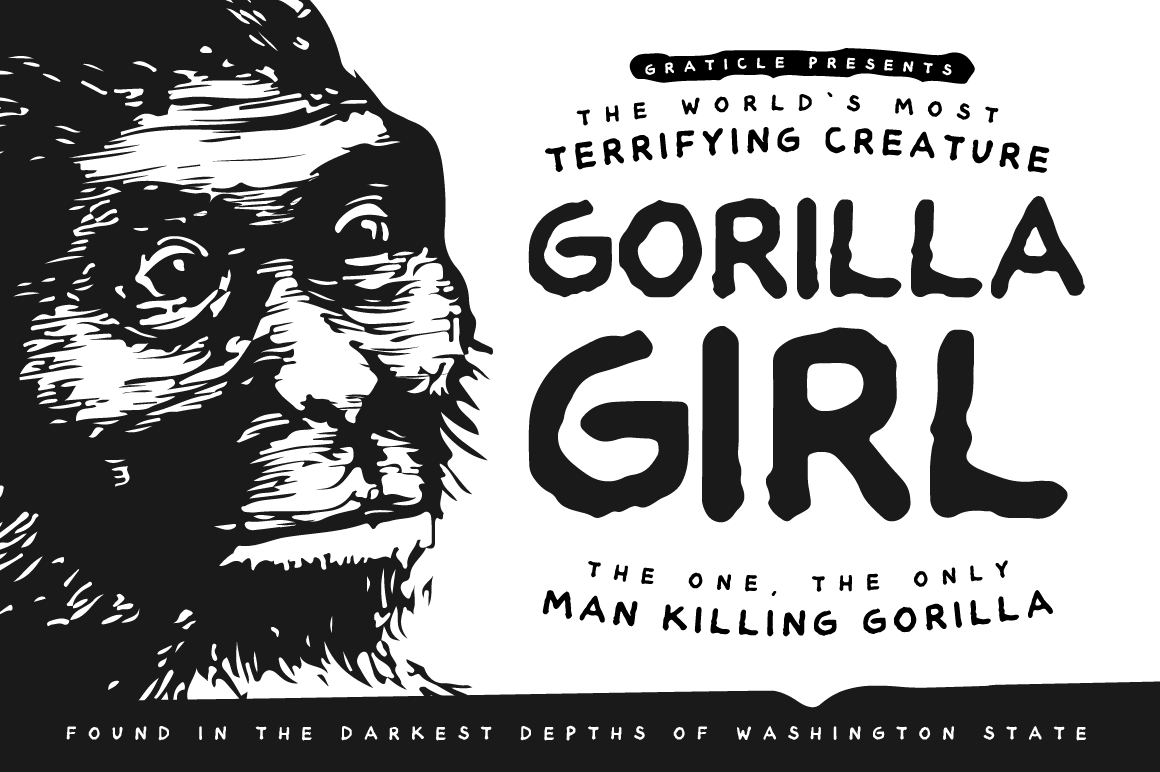
Gorilla Girl - Hand Drawn Font
Gorilla Girl is a hand drawn, hand written, hardworking, yet marvelous creature... er... font.
Gorilla Girl comes with uppercase characters and a variety of symbols. Check out the third image for a preview of every character/symbol included in the font.